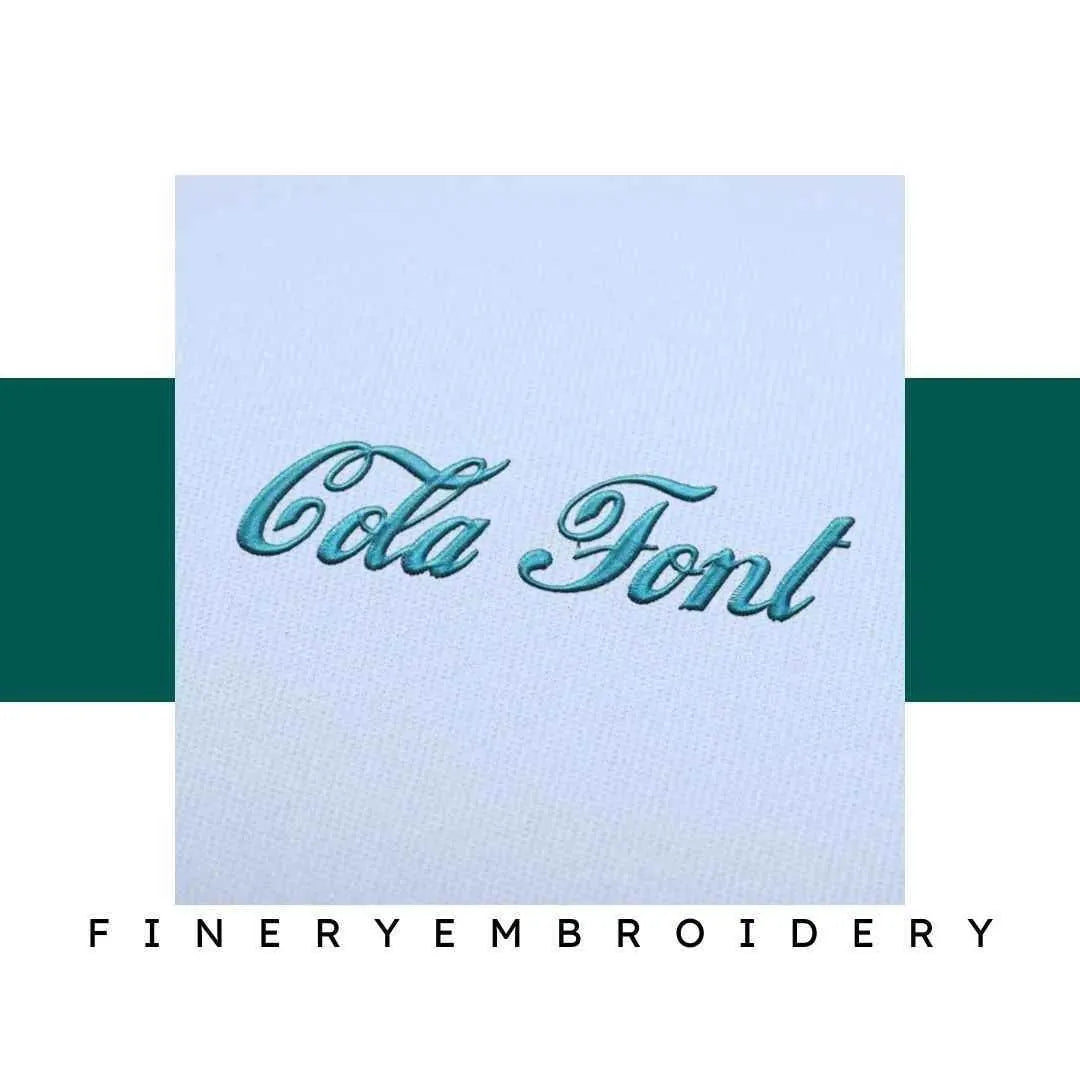
Unleash your creativity with the Cola Embroidery Alphabet Font Set—where elegance meets artistry in every letter!
Introducing the Cola Embroidery Alphabet Font Set, an exquisite collection designed for those who appreciate the finer details in embroidery. Each letter is crafted with precision, offering a sophisticated flair to all your projects. Whether you're personalizing gifts or embellishing your wardrobe, this font set will elevate your embroidery game to new heights.
The Cola Embroidery Alphabet Font Set stands out for its elegant design and high-quality craftsmanship. Each character is meticulously created, ensuring that your projects will boast a professional finish. With various sizes available—ranging from 2 inches to 5 inches—this alphabet set is versatile enough to meet all your embroidery needs.
Imagine transforming everyday items into personalized treasures! The Cola Font Set is perfect for crafting custom home decor, monogramming linens, or adding a unique touch to your clothing. Its intricate details allow you to create stunning designs, making it ideal for both novice and seasoned embroiderers looking to make a statement.